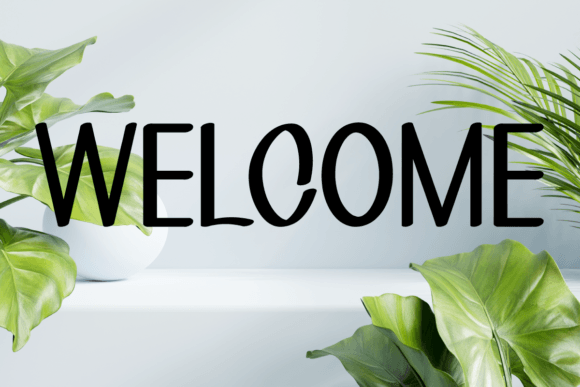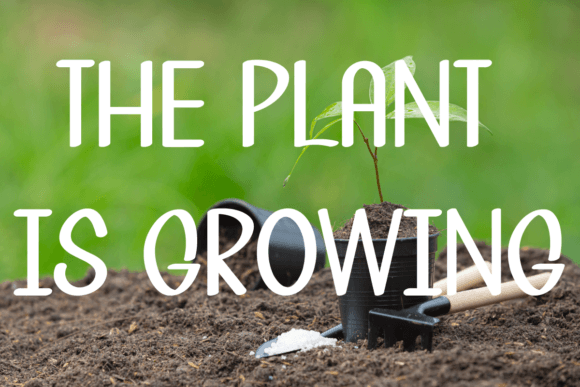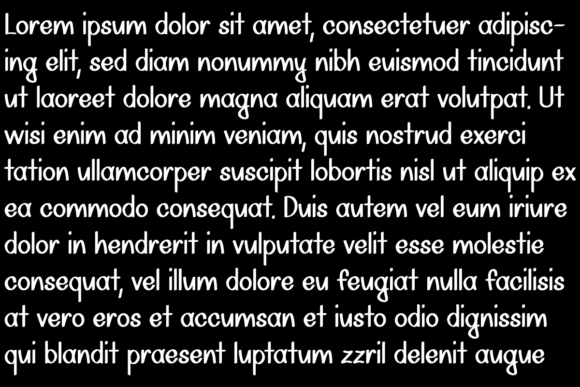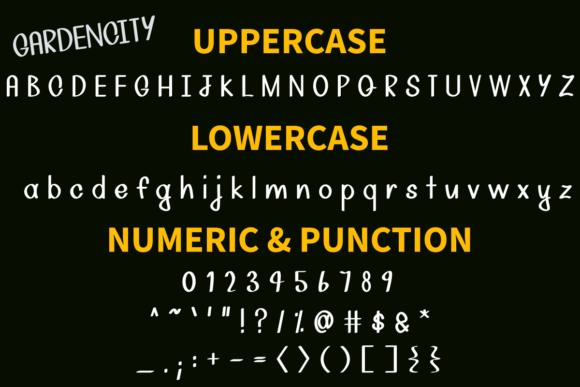
GardenCity Font: Add a Touch of Whimsy to Your Designs
Are you looking for a font that can add a dash of fun and friendliness to your designs? Look no further than the GardenCity font! This handwritten font is perfect for designers and crafters who want to create unique and eye-catching projects. In this article, we’ll take a closer look at the GardenCity font, its features, and how you can use it to elevate your designs.
What is GardenCity Font?
GardenCity is a fun and friendly handwritten font that is whimsical and a bit quirky. It’s the perfect addition to any design project that needs a personal touch. This font is designed to brighten up your designs and add a touch of personality to your work. With its unique and playful style, GardenCity font is sure to make your projects stand out from the crowd.
Key Features of GardenCity Font
- Handwritten style: GardenCity font has a beautiful handwritten style that gives it a personal and unique touch.
- Whimsical and quirky: This font has a playful and quirky feel that makes it perfect for designs that need a bit of personality.
- Versatile: GardenCity font can be used for a wide range of design projects, from logos and wedding invitations to quotes and advertisements.
- Easy to read: Despite its playful style, GardenCity font is easy to read and understand, making it perfect for body text and headings.
Uses of GardenCity Font
GardenCity font is perfect for a wide range of design projects, including:
- Logos: Add a touch of personality to your logo with GardenCity font. It’s perfect for creating unique and memorable logos that stand out from the crowd.
- Wedding invitations: GardenCity font is perfect for wedding invitations, adding a touch of whimsy and romance to your designs.
- Quotes: Use GardenCity font to create inspiring and eye-catching quotes that are perfect for social media, posters, and more.
- Advertisements: GardenCity font can add a touch of fun and friendliness to your advertisements, making them more engaging and effective.
- Print and magazines: Use GardenCity font in your print designs, such as magazines, brochures, and flyers, to add a touch of personality and whimsy.
Why Choose GardenCity Font?
There are many reasons why you should choose GardenCity font for your design projects. Here are a few:
- Unique style: GardenCity font has a unique and playful style that will make your designs stand out from the crowd.
- Versatile: GardenCity font can be used for a wide range of design projects, making it a great addition to your font library.
- High-quality: GardenCity font is a high-quality font that is designed to produce crisp and clear results, even at small sizes.
Tips for Using GardenCity Font
Here are a few tips for using GardenCity font in your design projects:
- Use it sparingly: GardenCity font is a bold and playful font, so use it sparingly to avoid overwhelming your designs.
- Pair it with other fonts: GardenCity font pairs well with other fonts, so experiment with different combinations to find the perfect look for your designs.
- Experiment with colors: GardenCity font looks great in a wide range of colors, so experiment with different colors to find the perfect look for your designs.
GardenCity font is a fun and friendly handwritten font that is perfect for designers and crafters who want to add a touch of whimsy to their designs. With its unique and playful style, GardenCity font is sure to make your projects stand out from the crowd. Whether you’re creating logos, wedding invitations, quotes, or advertisements, GardenCity font is a great choice. So why not give it a try and see the difference it can make in your designs?